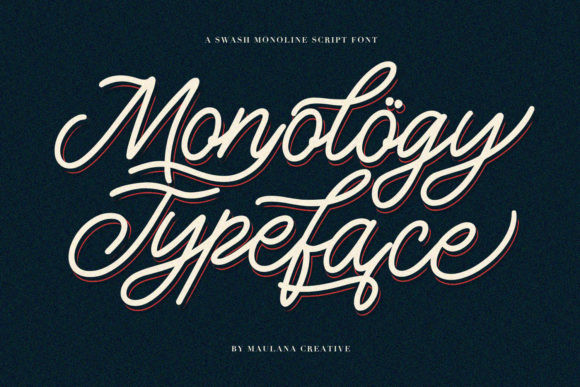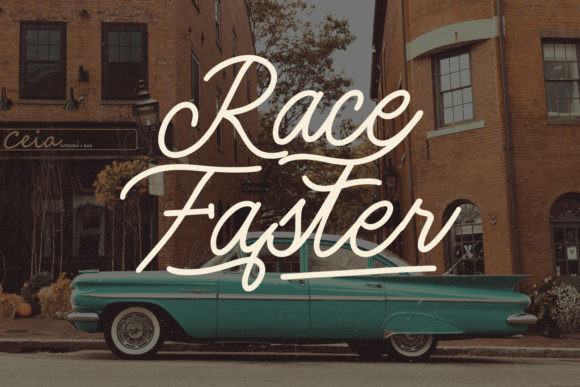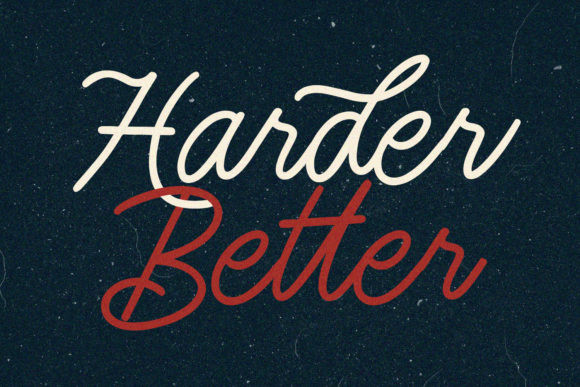
Monology Font
Monology is a beautiful script font. It has an authentic handcrafted feel and it”s perfectly suited for signature, stationery, logos, typography quotes, magazine or book cover, website header, clothing, branding, packaging design and more.